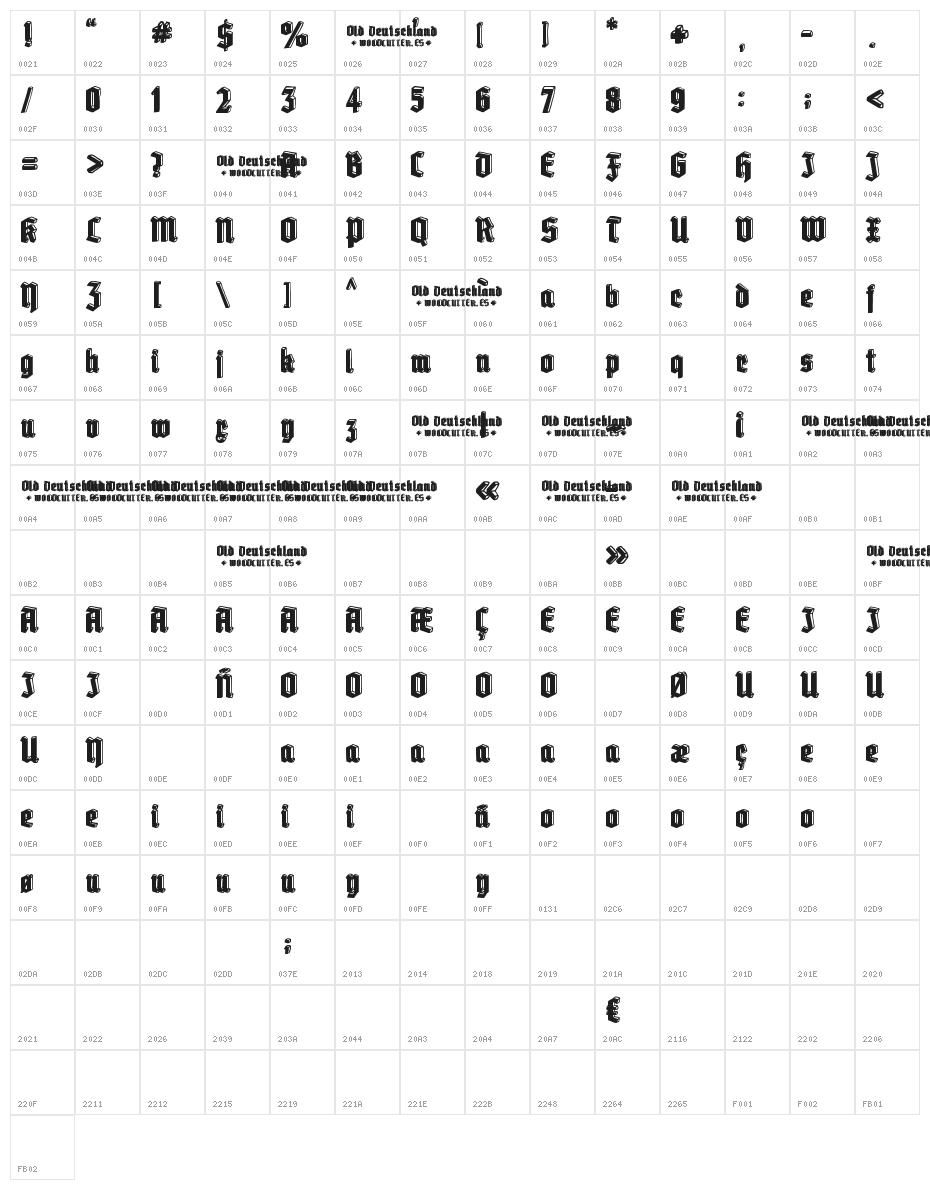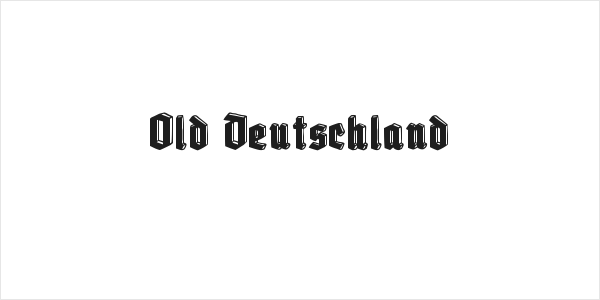
Old Deutschland Font
Old Deutschland Description
This font features a bold, intricate design reminiscent of traditional Blackletter styles, often associated with historical Germanic scripts. The characters are highly decorative, with sharp angles and elaborate serifs that give them a distinct, gothic appearance. The uppercase letters are particularly ornate, with strong vertical lines and dramatic flourishes. The lowercase letters maintain the same stylistic elements but are slightly more subdued, allowing for readability while preserving the overall aesthetic. Numbers and special characters are designed to match the elaborate style, ensuring consistency across all text elements.
| Use Case | Headlines, Logos, Decorative text |
| Proposed Projects | Ideal for projects requiring a historical or gothic theme, such as book covers, posters, or branding for vintage or medieval-themed events. |